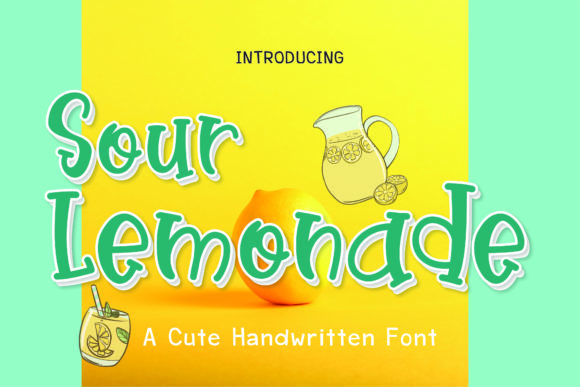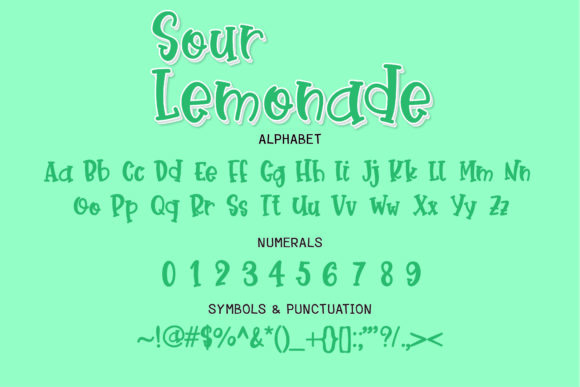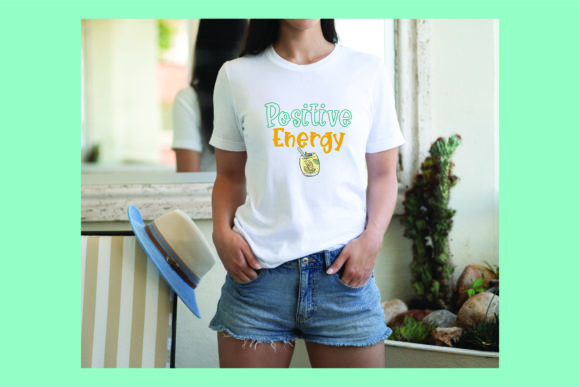
About Sour Lemonade Font
Sour Lemonade is a quirky, chic and informal handwritten font. Whatever the topic, this font will be a wonderful asset to your font library, as it has the potential to enhance any creation.